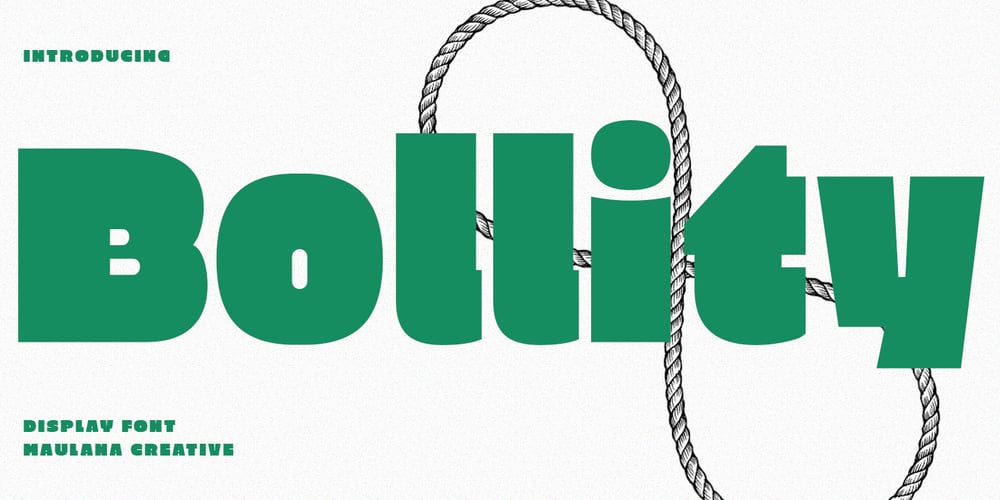
MC Bollity Font Family was designed by Gilang Maulana and published by Maulana Creative. MC Bollity contains 1 styles and family package options. Bollity is a modern sans Display font. Heavy stroke, fun character with a bit of ligatures and alternates. To give you an extra creative work. Bollity font support multilingual more than 100+ language. This font is good for logo design, Social media, Movie Titles, Books Titles, a short text even a long text letter and good for your secondary text font with script or serif. Make a stunning work with Bollity font. Cheers, Maulana Creative